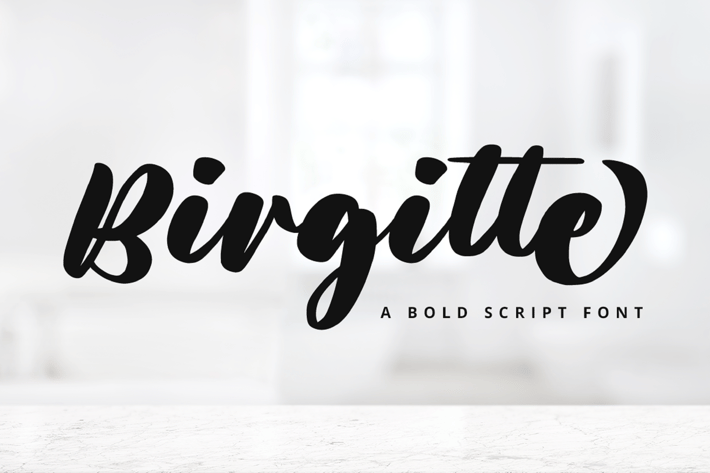
Bold Script Font
Introducing Birgitte - A Bold Script Font.
This bold, script font will engage your audience and make your promotions and projects stand out from the competition.
Bring your branding to life and add a touch of modernity and style with Benitta. Use it for headings, logos, business cards, printed quotes, invitations of all sorts, cards, packaging, and your website or social media branding.
Multilingual & Ligature Support
Full sets of Punctuation and Numerals